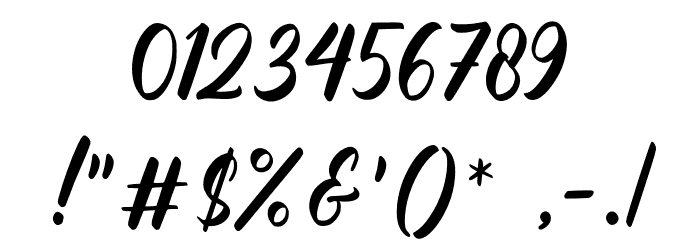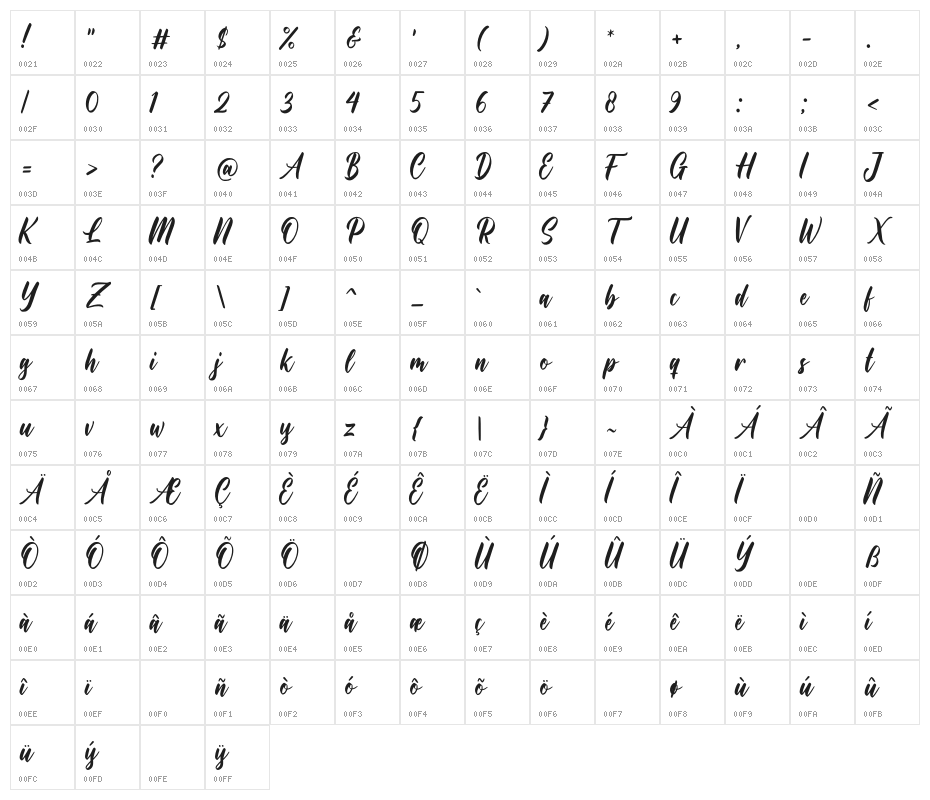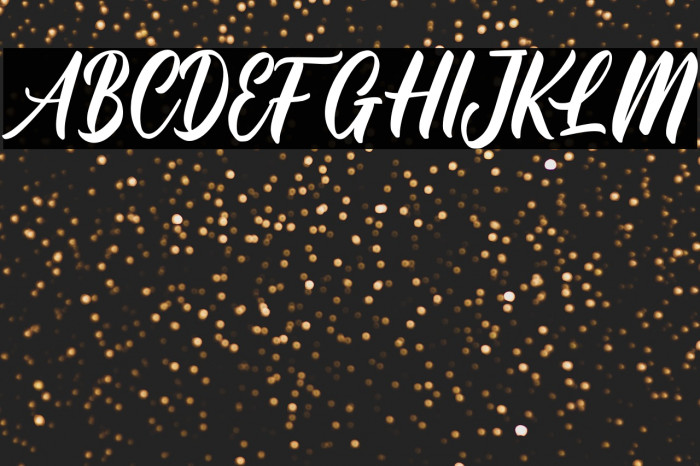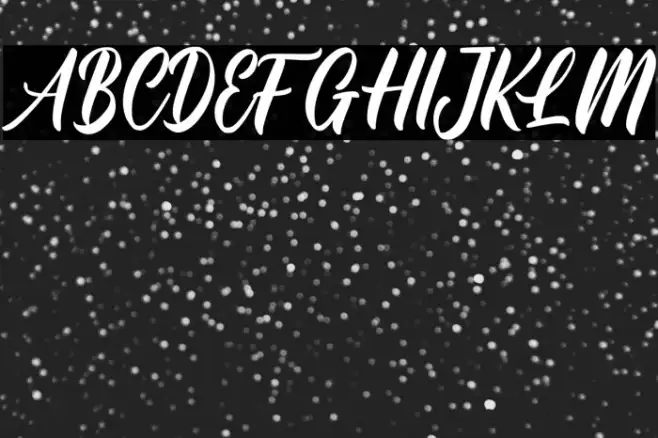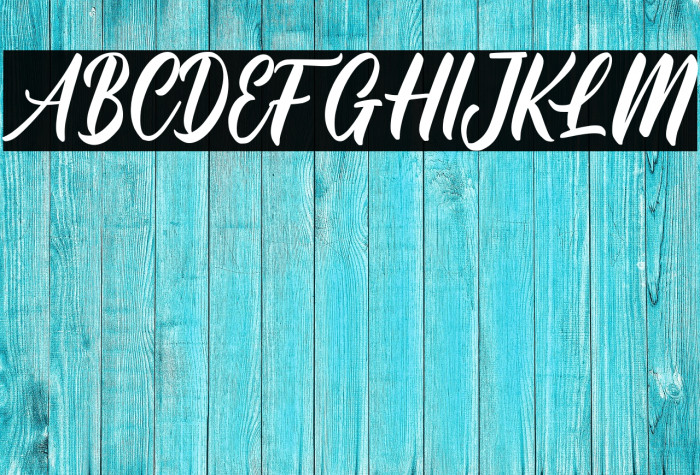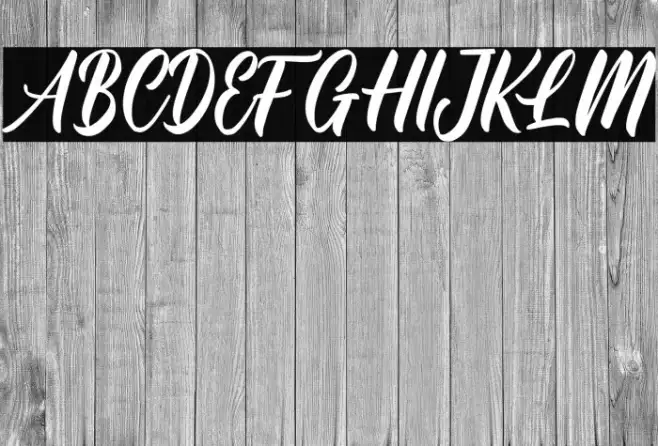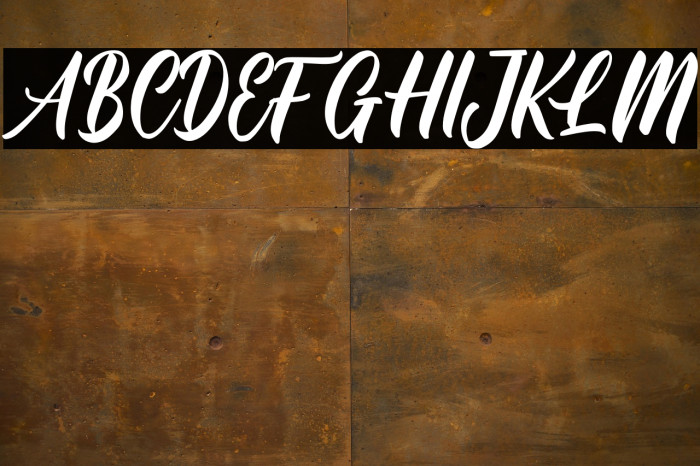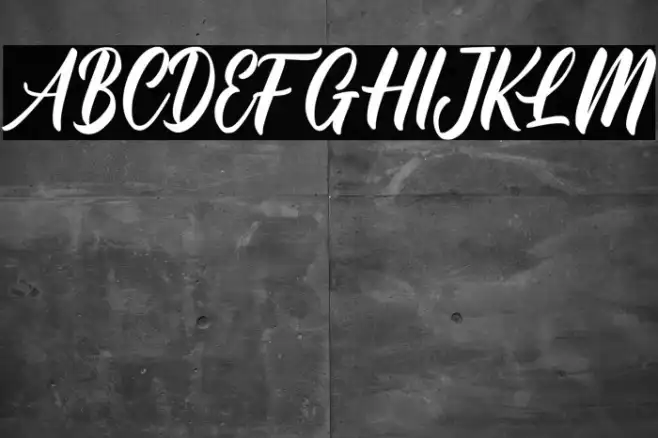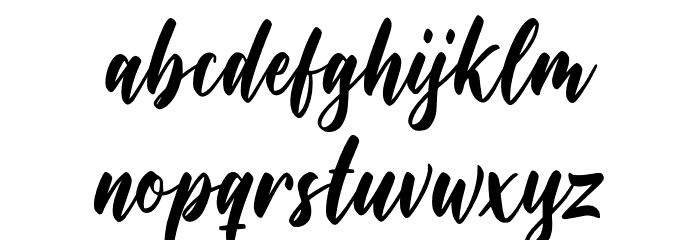
MaringueWreath Font
MaringueWreath Description
This font features a flowing, cursive style that exudes elegance and sophistication. The letters are connected in a smooth, continuous manner, reminiscent of traditional calligraphy. The uppercase letters are bold and prominent, while the lowercase letters maintain a consistent flow, adding a touch of grace. The numerals are clear and easy to read, matching the overall cursive theme. Special characters are designed with the same fluidity, ensuring a cohesive look across all text. This font is perfect for projects that require a personal, handwritten touch.
| Overall Style | Elegant, Calligraphic |
| Proposed Projects | Ideal for wedding invitations, greeting cards, and elegant branding projects. |